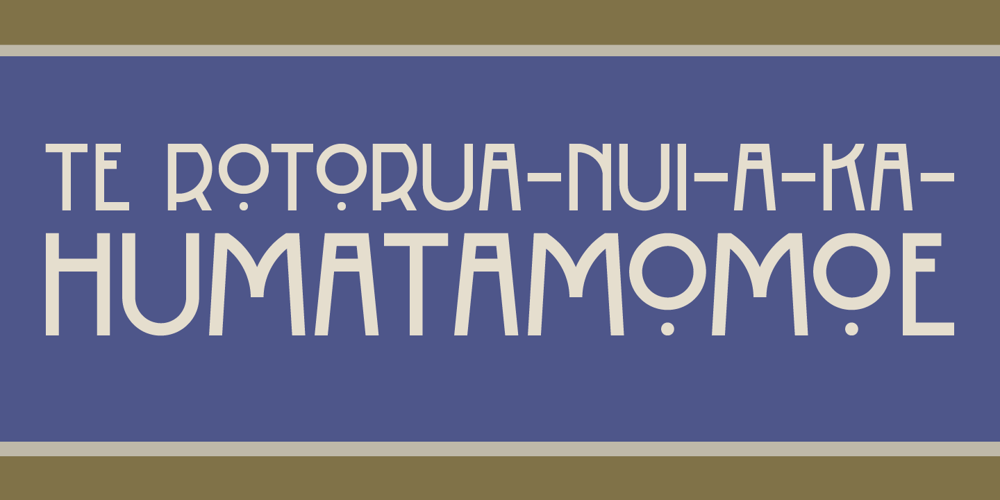
Rotorua
Rotorua font
Rotorua Font Family was designed by David Kerkhoff and published by Hanoded. Rotorua contains 1 styles and family package options. Rotorua is a nice city in the Bay of Plent area of New Zealand. The area is famous for geothermal activity and every year thousands of tourists flock there to see the bubbling hot mud pools and the Pohutu Geyser. Rotorua font is a beautiful art deco typeface – with a twist. The font is all caps, but the lower case o, q and y differ. Rotorua comes with volcanic language support.